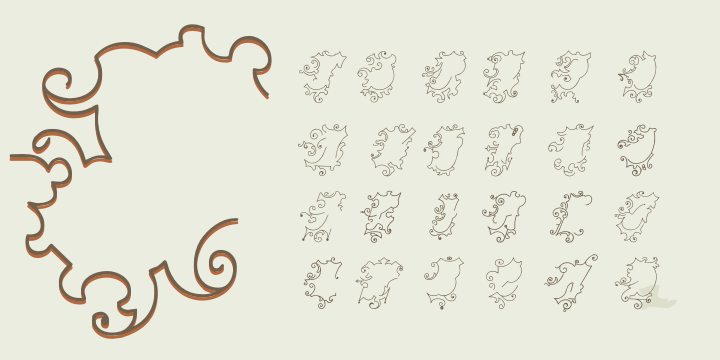
Centennial Ornaments
Designed by Paulo W, Centennial Ornaments is a dingbat font family published by Intellecta Design.
A very beautiful and useful set of ornaments. From american typography heritage